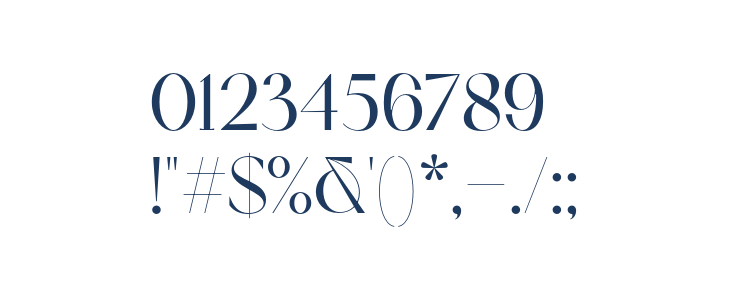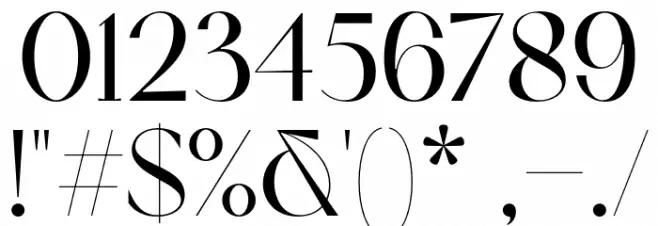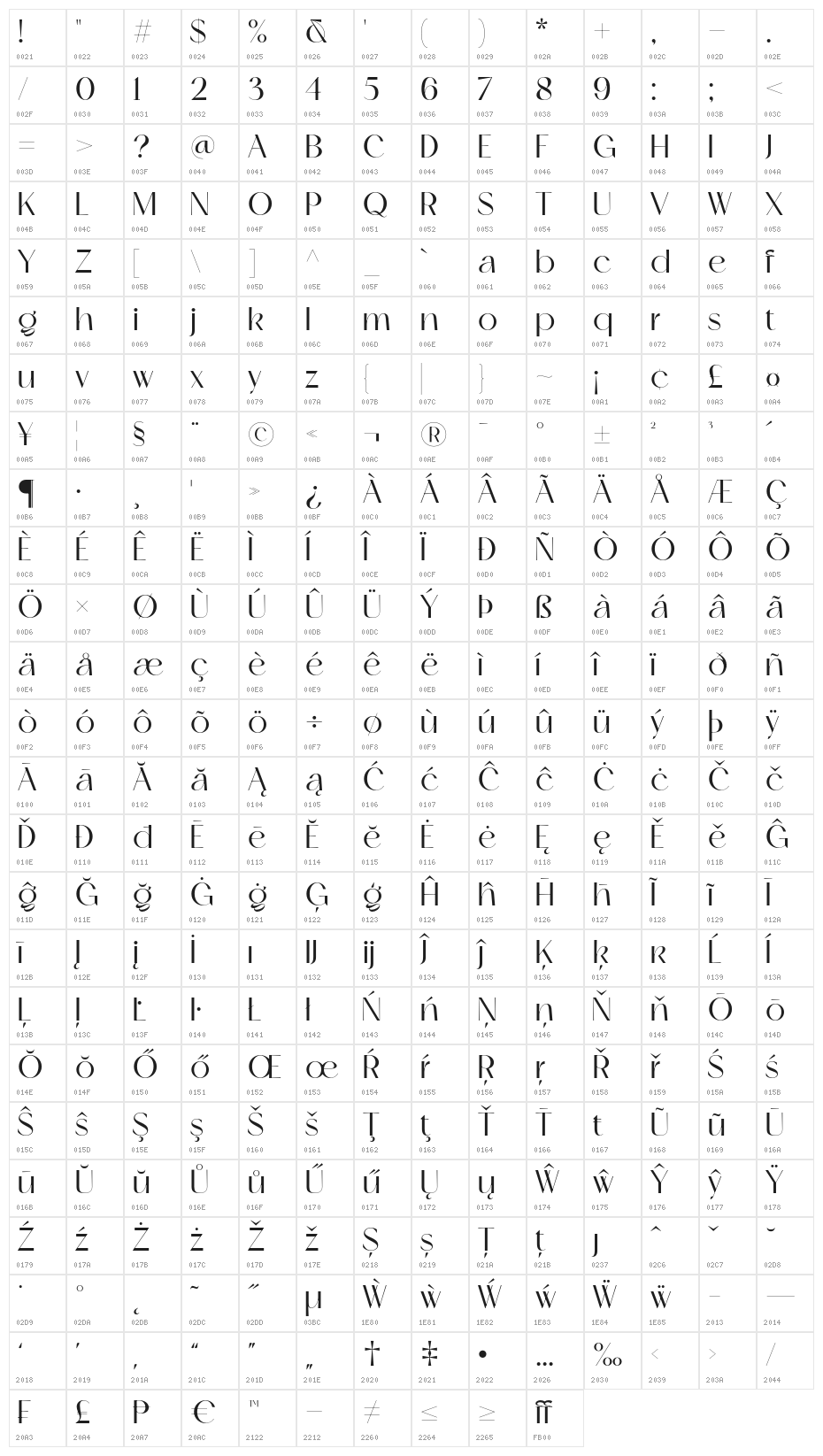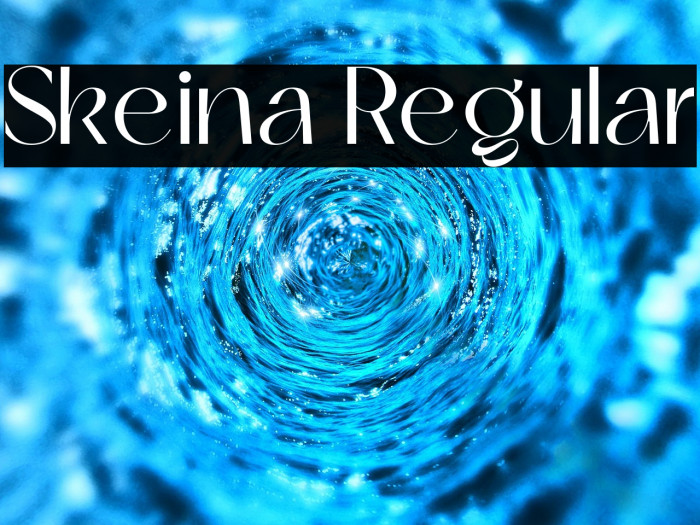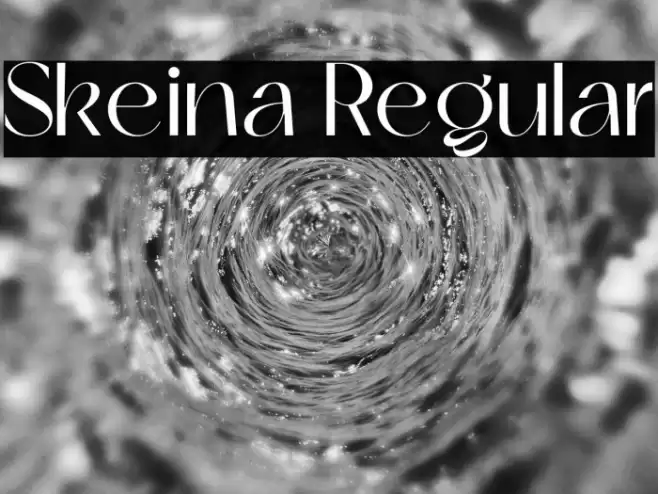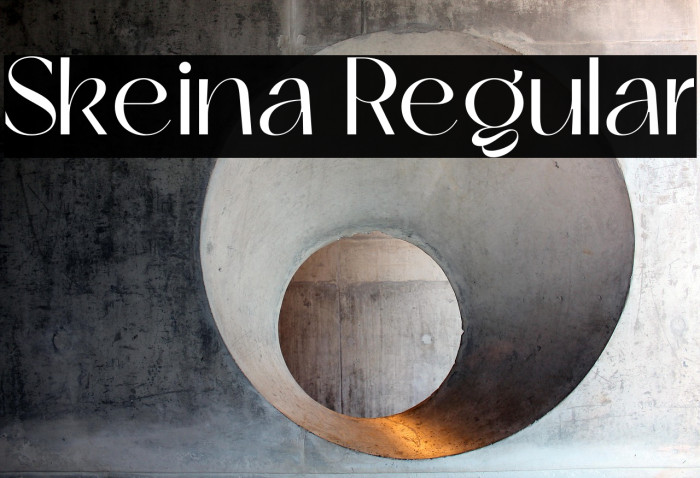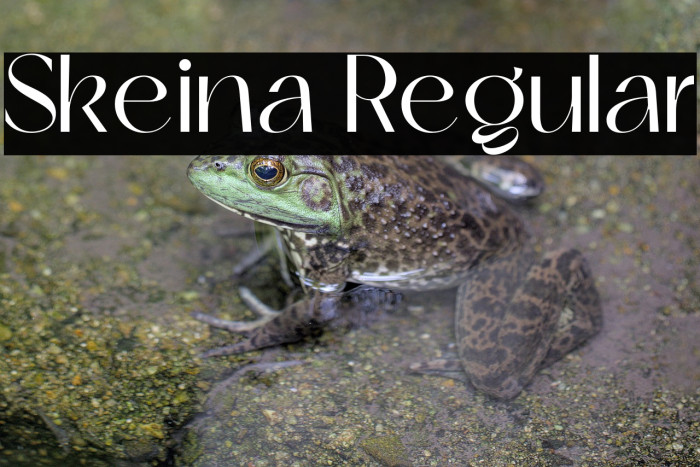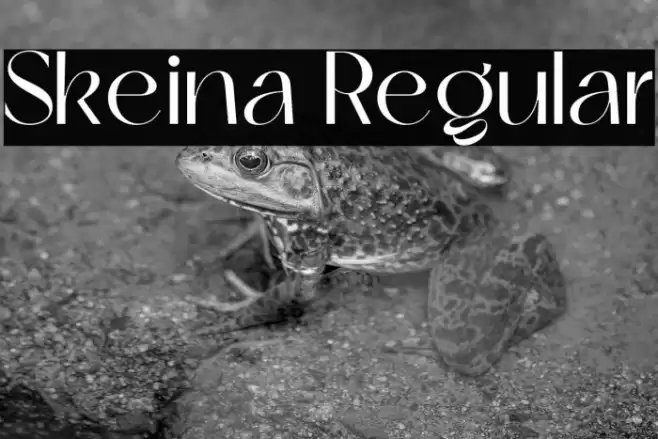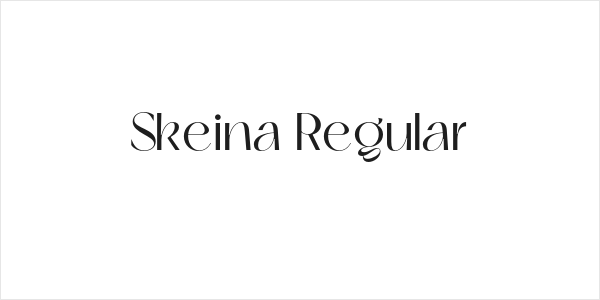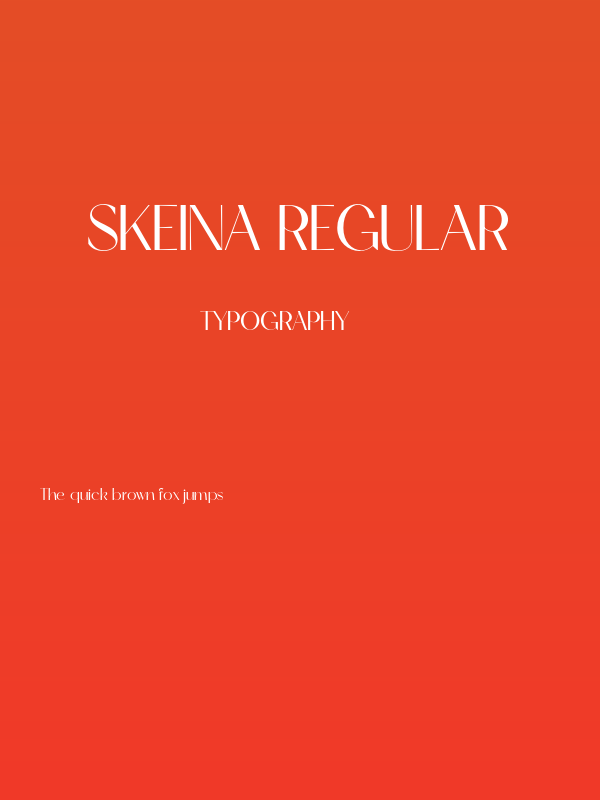
Skeina Regular Font
Skeina Regular Description
This font features a modern and elegant design with a high contrast between thick and thin strokes, giving it a sophisticated and stylish appearance. The uppercase letters are tall and slender, while the lowercase letters maintain a consistent flow with unique curves and angles. The numerals are distinct and clear, complementing the overall aesthetic. Special characters are well-integrated, maintaining the font's sleek and contemporary feel. The font's design is versatile, making it suitable for a variety of creative projects.